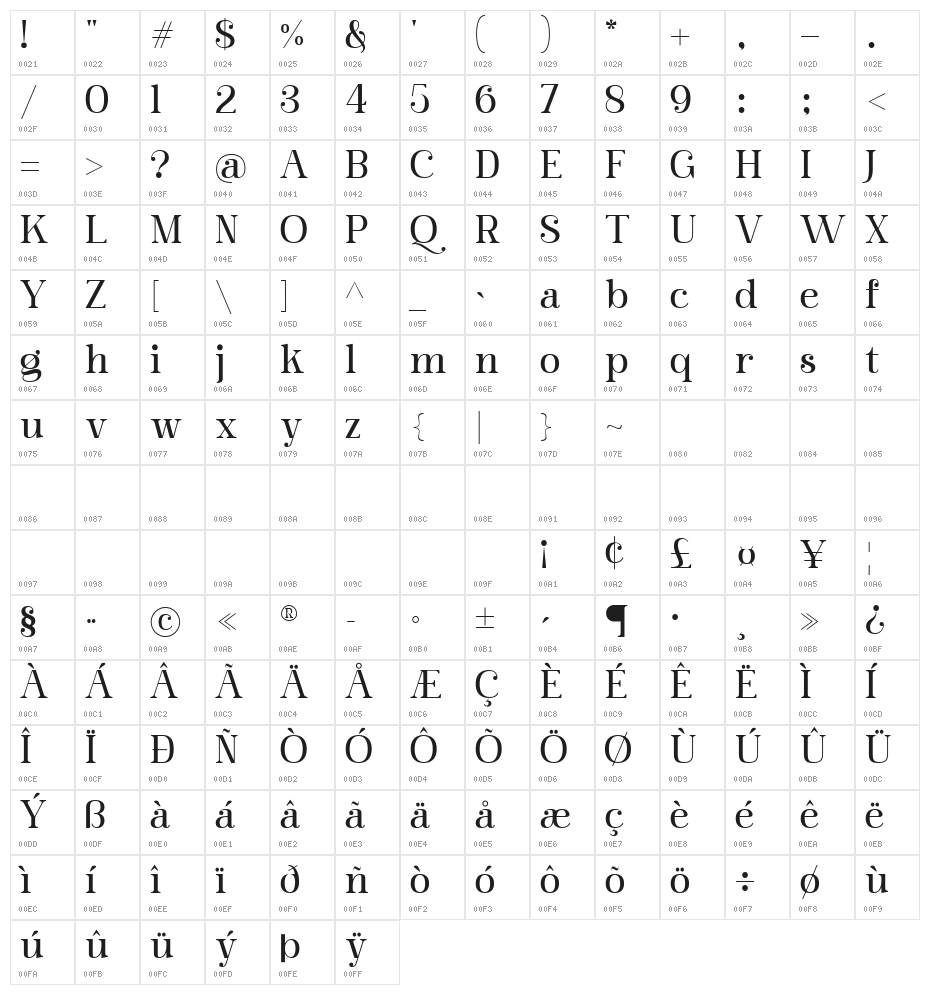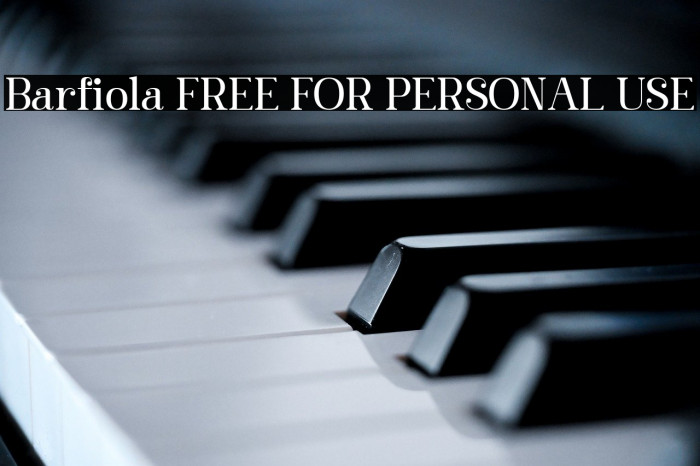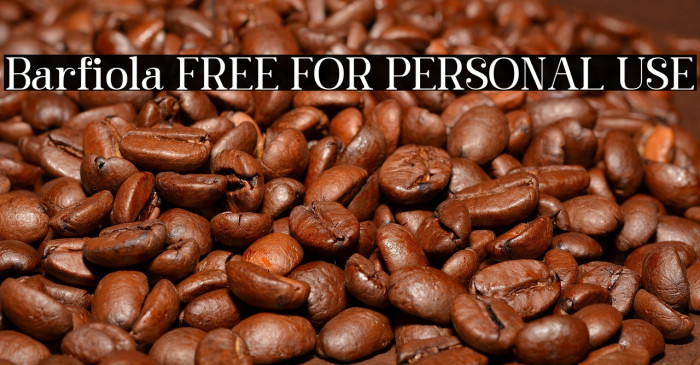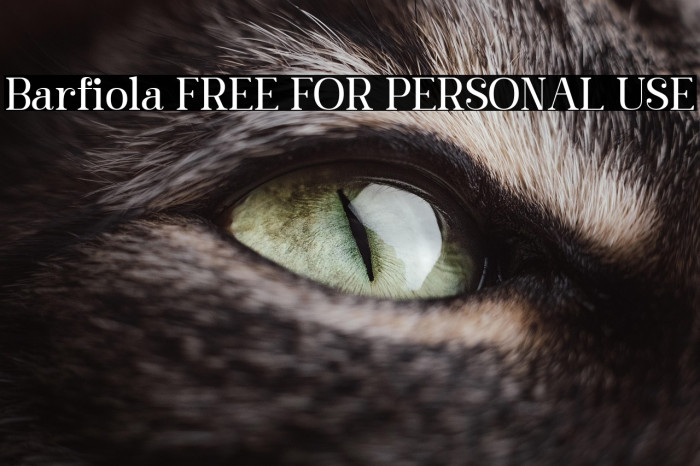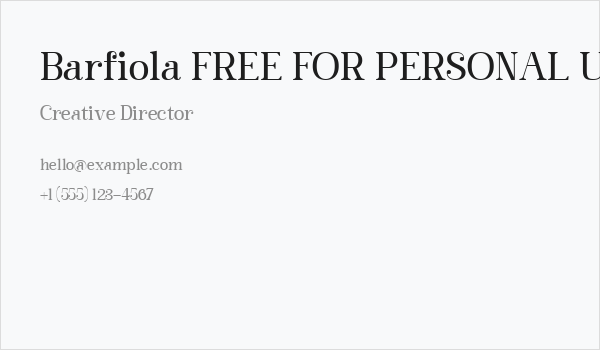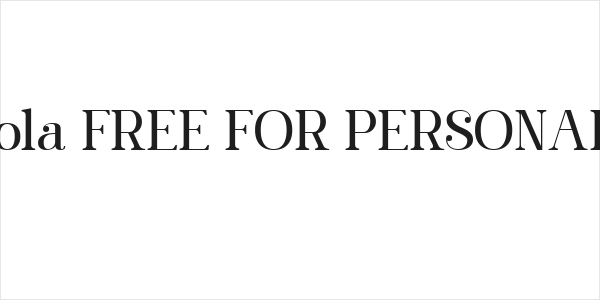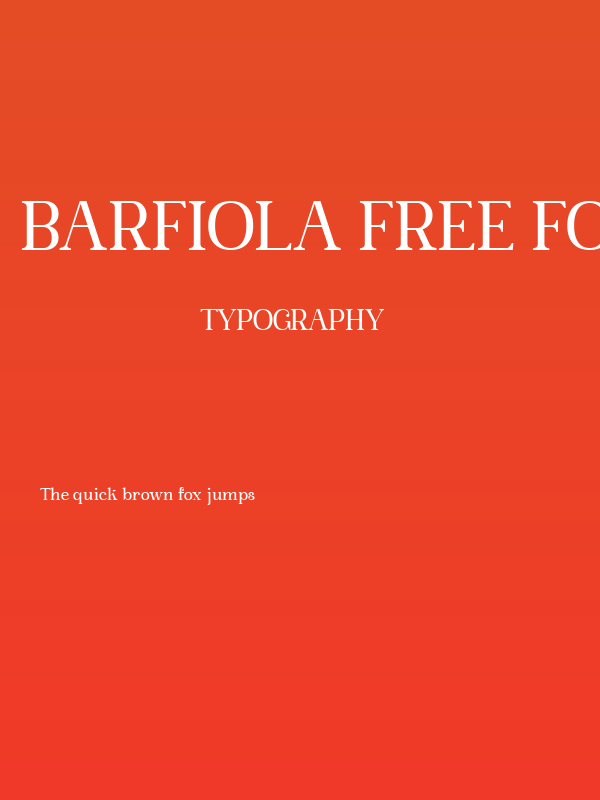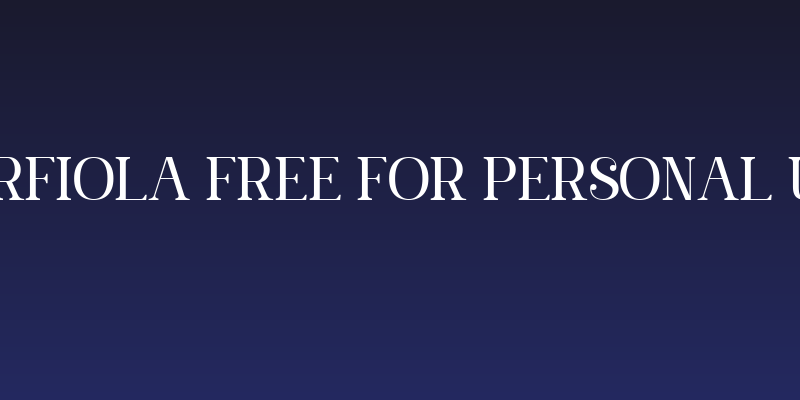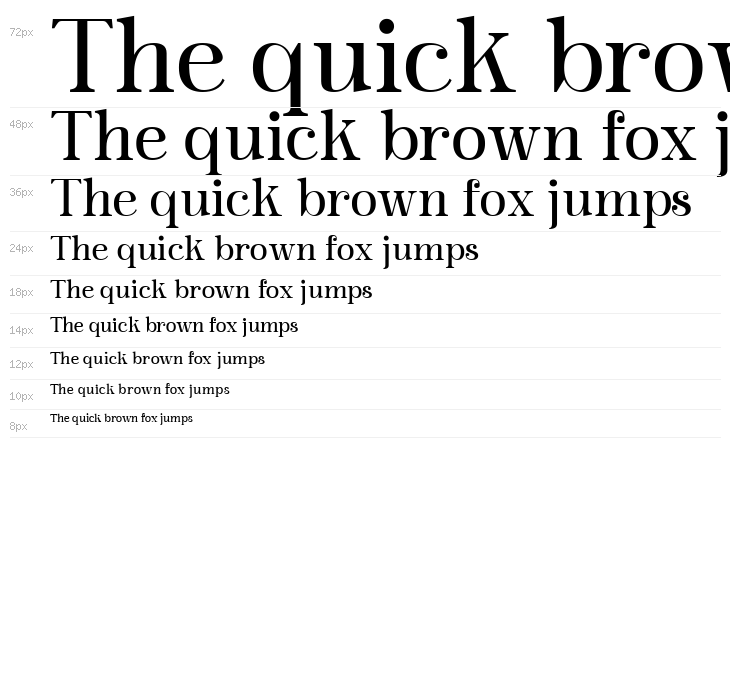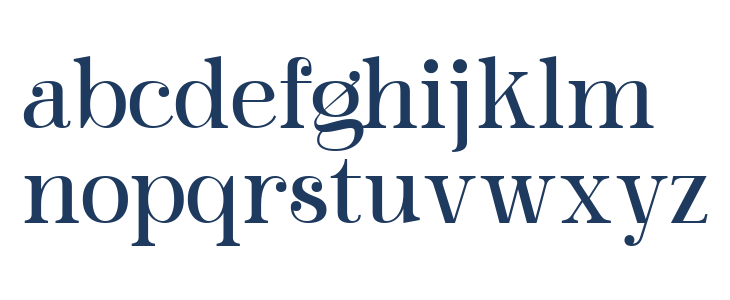
Barfiola FREE FOR PERSONAL USE Font
Barfiola FREE FOR PERSONAL USE Description
This font exhibits a classic serif style with elegant and refined strokes. The uppercase letters are bold and commanding, while the lowercase letters maintain a graceful flow. The numerals are well-proportioned, complementing the overall aesthetic. Special characters are distinct and harmonize with the letterforms, adding versatility. The font's design is reminiscent of traditional typography, yet it maintains a modern appeal, making it suitable for a variety of applications. The serifs are pronounced, providing a sense of stability and formality.
| Proposed Projects | Ideal for editorial design, book covers, formal invitations, and branding projects that require a touch of elegance. |